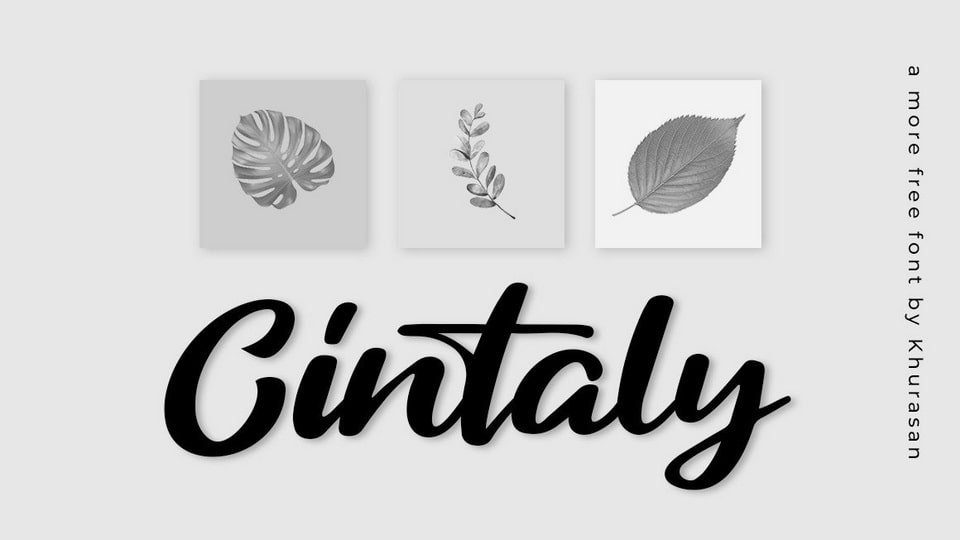
Download Cintaly font, a simple and natural handwritten script typeface. Cintaly font is perfect for posters, logos, magazines, book covers, banners, and many more.